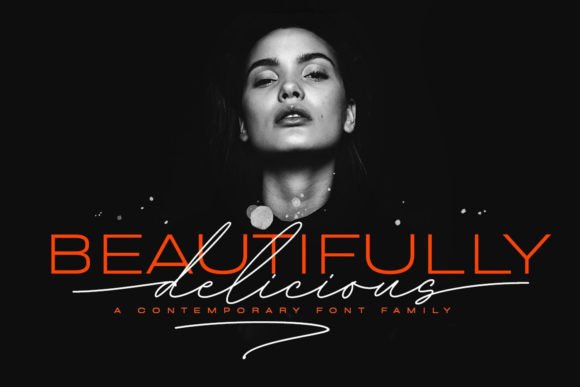
Introducing the Beautifully Delicious Font, a stunning and versatile font family that is sure to take your design projects to the next level! This new font family is created by the talented team at My Creative Land and combines elegantly extended sans serif fonts with a signature script, resulting in a harmonious union that is simply breathtaking.
The Beautifully Delicious Font is perfect for a wide range of design projects, including graphic design, branding, social media ads, magazines, greeting cards, packaging, and much more. Its versatility and adaptability make it a must-have for any designer or creative individual looking to elevate their work.
One of the standout features of this font is that it is PUA encoded, which means you can easily access all of the unique glyphs and swashes that make the Beautifully Delicious Font so special. With just a few clicks, you can add stunning flourishes and decorative elements to your designs, making them truly one-of-a-kind.
Whether you're a seasoned designer or just starting out, the Beautifully Delicious Font is a font family that you won't want to miss. With its elegant and sophisticated script, combined with the clean lines of the sans serif font, it is the perfect choice for any project that requires a touch of sophistication and style.